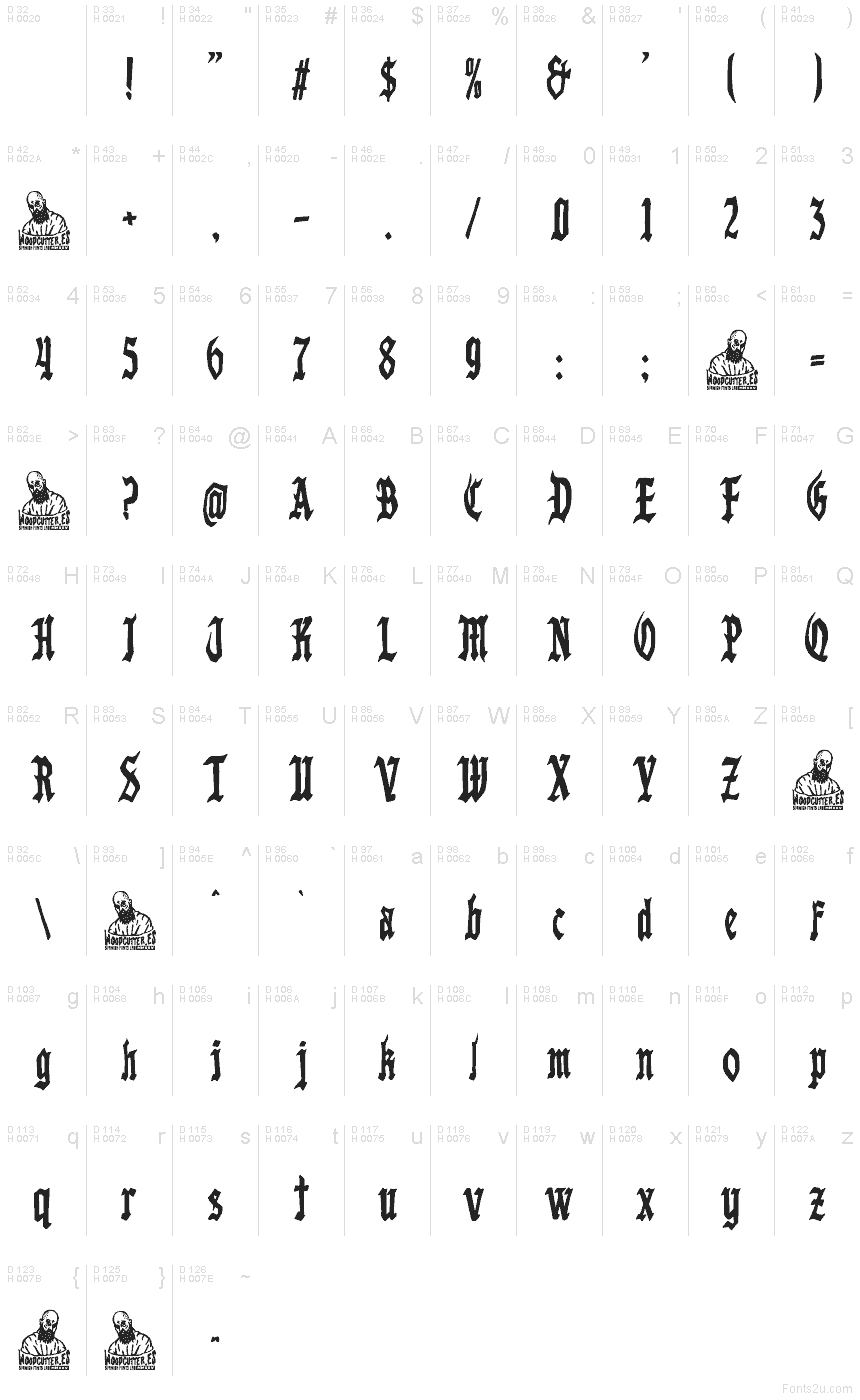
Vampiro Gótico
Vampiro Gótico font by Woodcutter Manero is a free Halloween blackletter display font. The Vampiro family leans into serrated, coffin-like angles and heavy, inky strokes that feel hand-hewn and a little feral—more crypt than calligraphy. Its tall, thorny rhythm locks up tightly, delivering bold, cinematic titles that read fast while keeping that gothic bite.
Using Vampiro Gótico, you’ll nail haunted house posters, horror movie titles, party invitations, seasonal packaging, escape-room signage, festival flyers, and goth band merch. This free font thrives at oversized scales; for body copy or captions, pair it with a clean geometric sans to keep contrast sharp and legibility high.